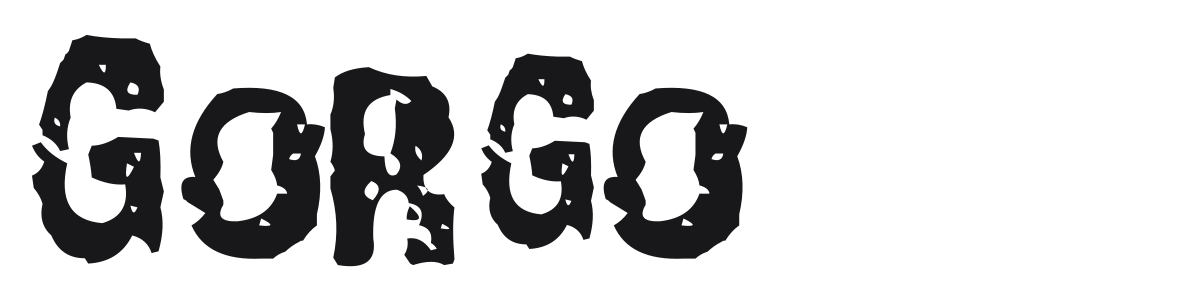
Gorgo
Gorgo is a heavily distressed display face inspired directly by a 1950s monster movie poster. Every character looks like it has been chipped from crumbling stone or clawed apart, with rough, irregular edges and a thick blocky structure underneath the decay. The result is instant creature-feature energy, built for horror titles, album covers, and anything that needs a genuine sense of menace.